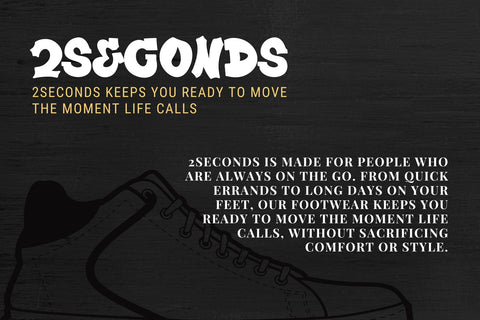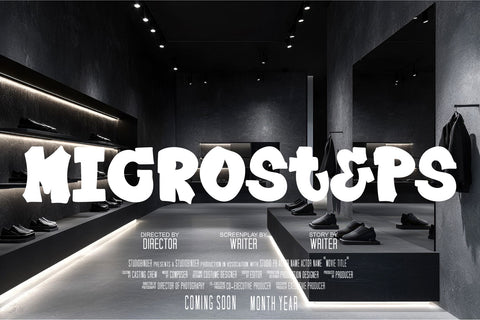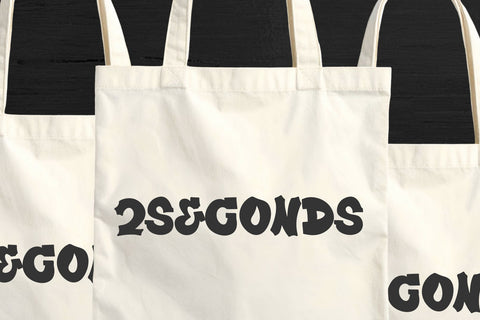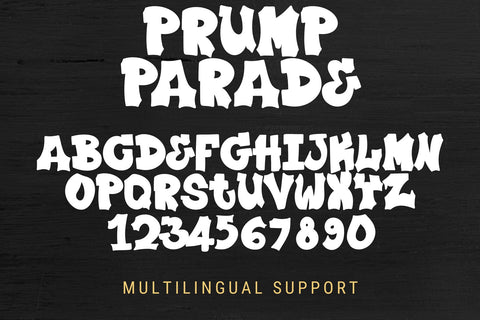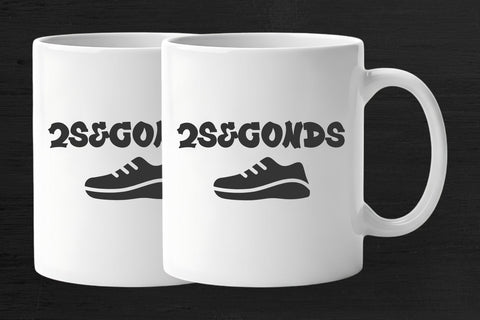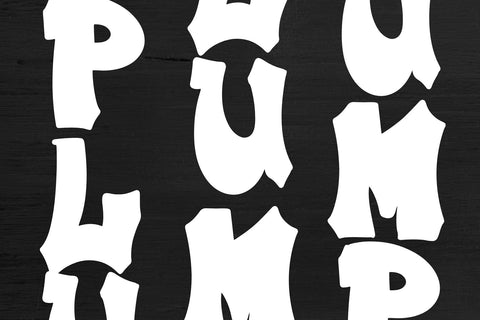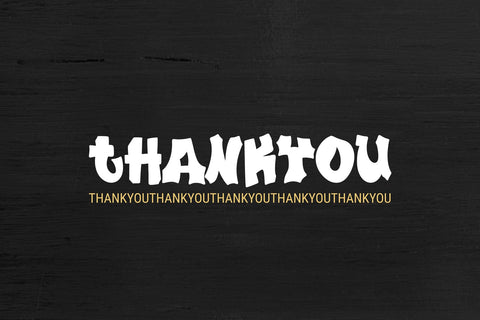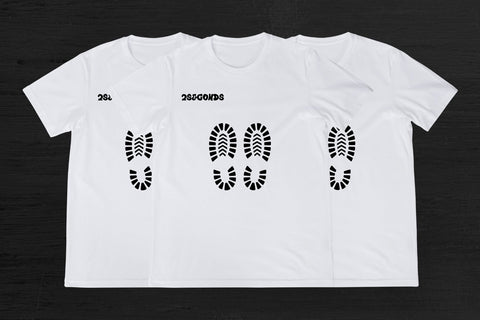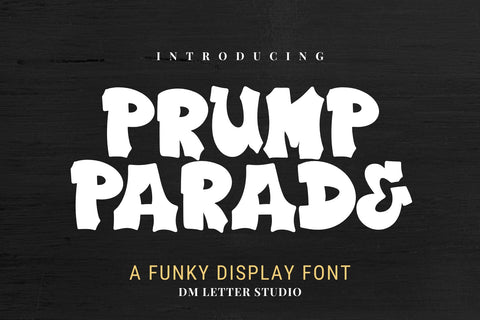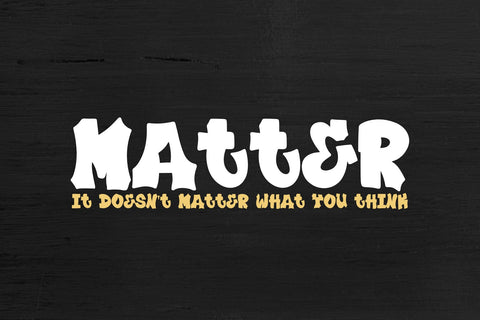
Plump Parade Font
Meet Plump Parade Font
Plump Parade Font marches in with big, bouncy letters that grab attention fast. Rounded forms feel friendly and celebratory, while wide counters keep every word clear on posters, shirts, stickers, banners, and social posts. Use it for parade signage, festival merch, school spirit days, birthday decor, and brand launches. Because spacing is even and curves are smooth, thumbnails pop on marketplaces and large prints stay crisp.
Why creators love this parade font
First, it’s loud in the best way. Next, it cuts cleanly for Cricut, Silhouette, and laser projects. Then it layers beautifully with outlines or drop shadows, so two-color effects take minutes, not hours. As a result, you can build a full event kit—posters, tees, pennants, buttons, and photo-booth props—using one consistent type style.
Ready for events, merch, and posts
Plump Parade in action
Set short, stackable phrases like “Parade Day,” “Go Team,” “Block Party,” or “Grand Opening.” Try arched baselines, sticker outlines, and badge shapes for instant festival vibes. Because strokes are generous and spacing is steady, the font stays readable from handheld flyers to street banners.
Curves tuned for vinyl, print, laser, DTF, and sublimation
Design tips for maximum cheer
Keep headlines short and chunky. Add a thick offset shadow or inner fill to create bubble-letter depth. Then, use repeating color stripes or confetti dots to sell the celebration theme. Finally, export at 300 DPI for print and at 2× size for web to keep edges smooth.